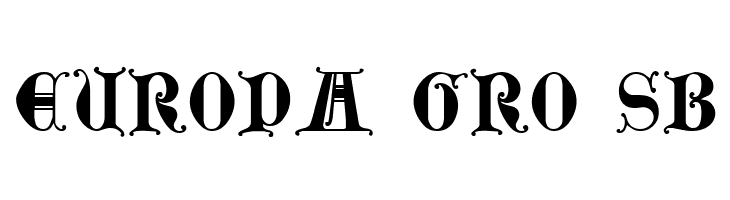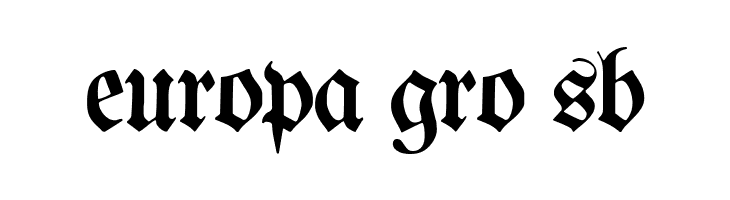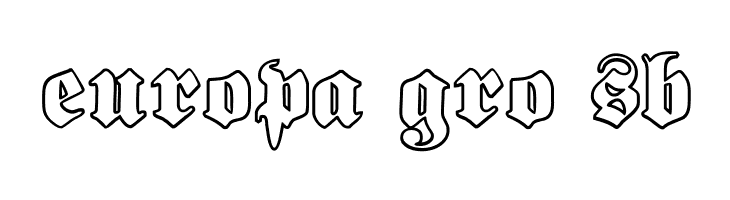
An ornate, gothic-style font with elaborate flourishes and embellishments.
A classic blackletter font with ornate and dramatic letterforms.
A bold, outlined blackletter-inspired font with ornate details.
A bold, intricate blackletter font with ornate and dramatic letterforms.